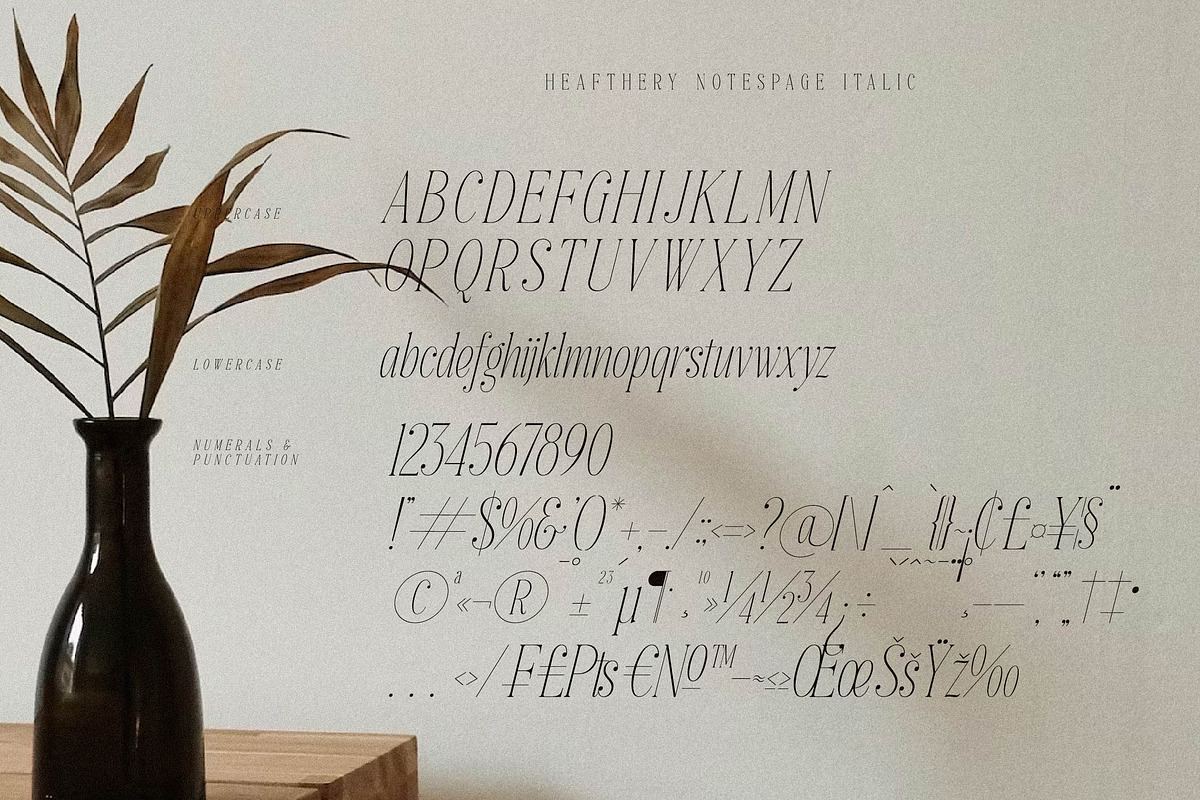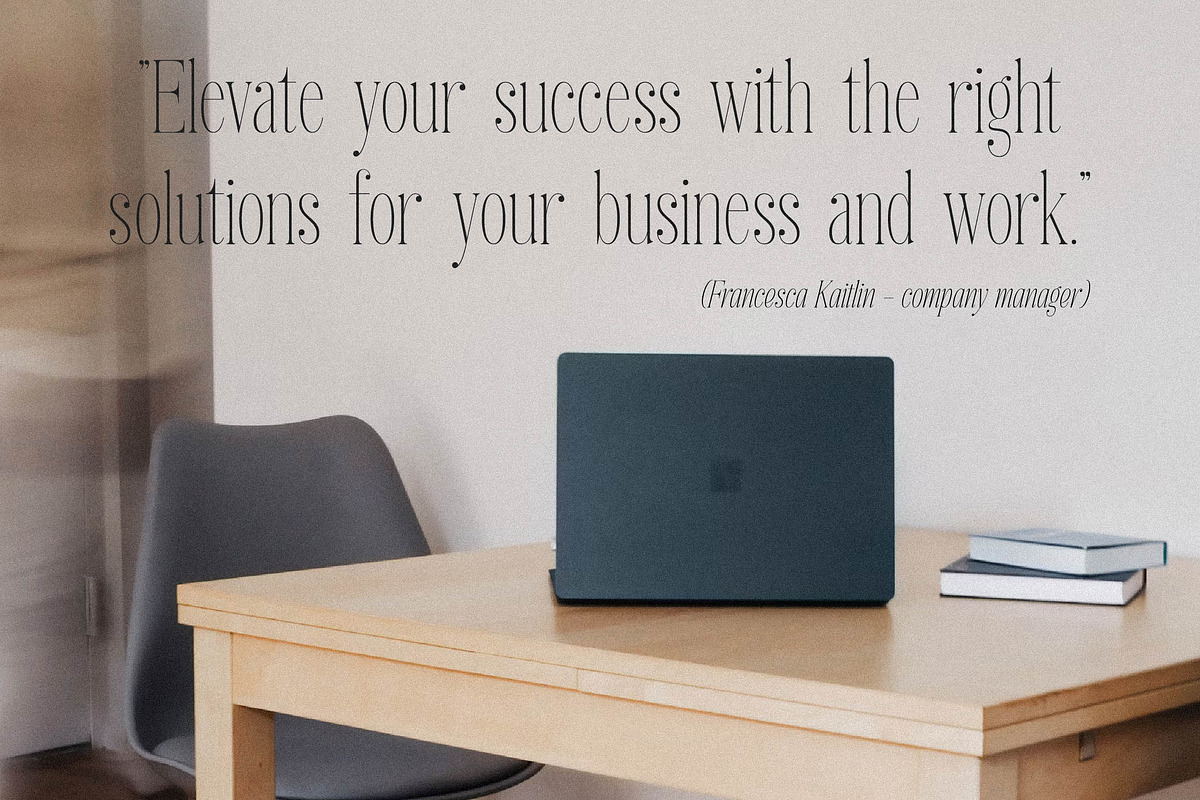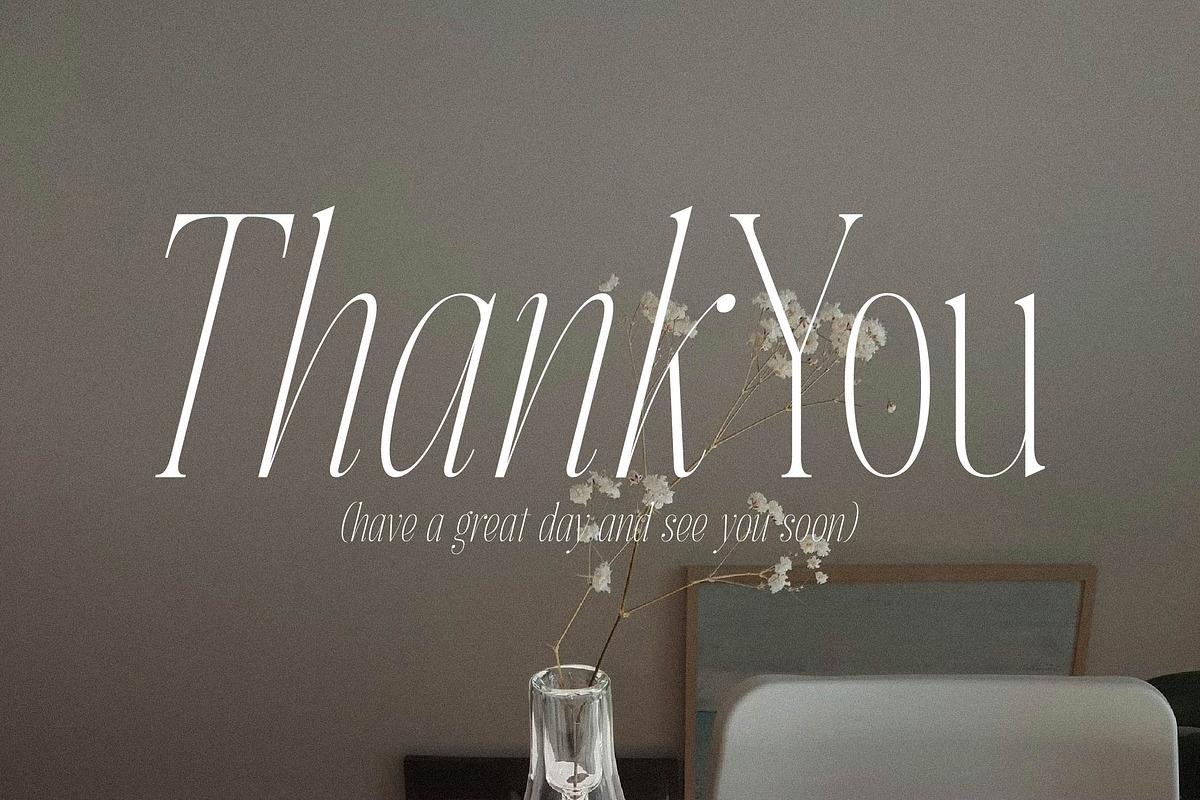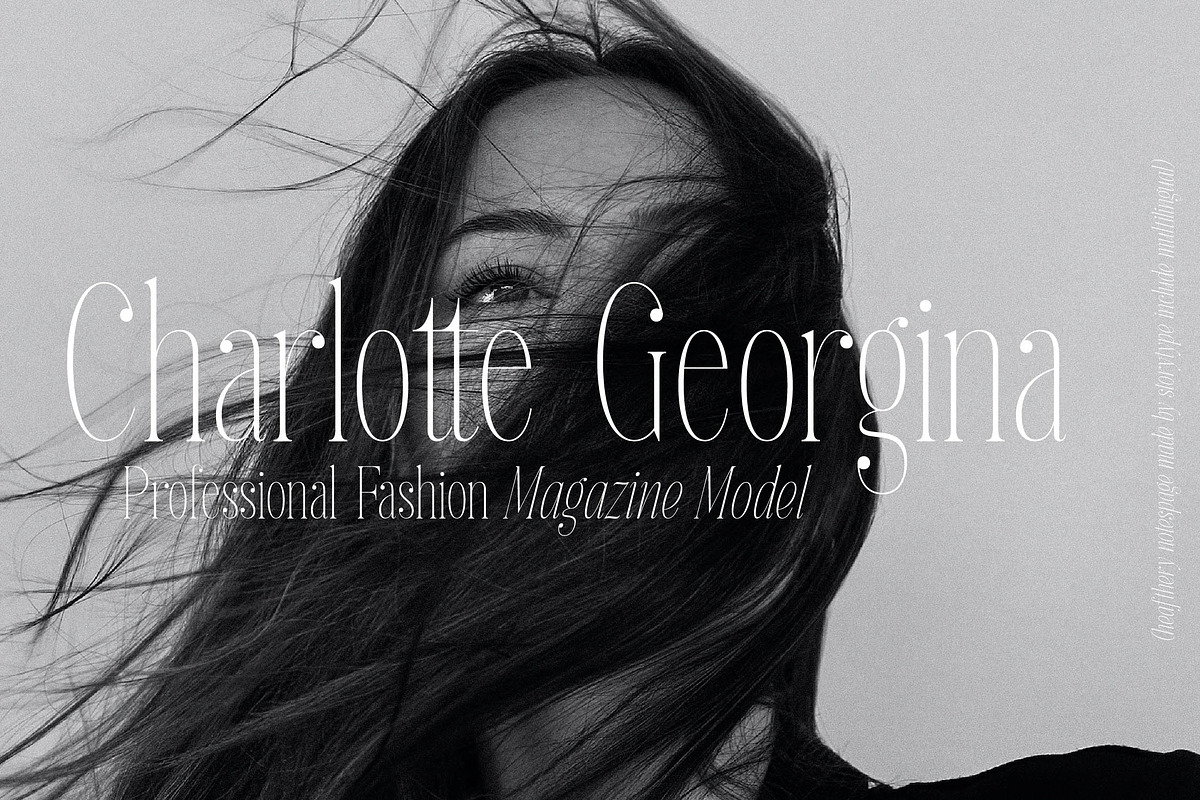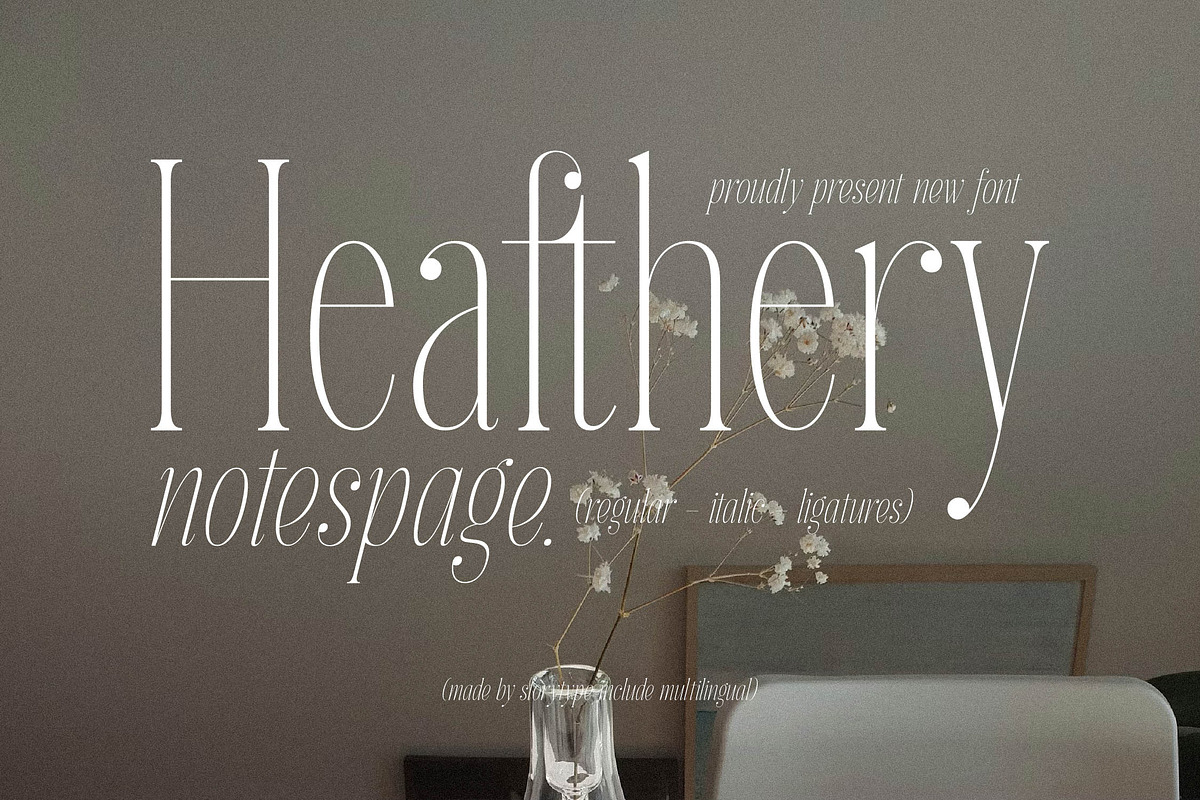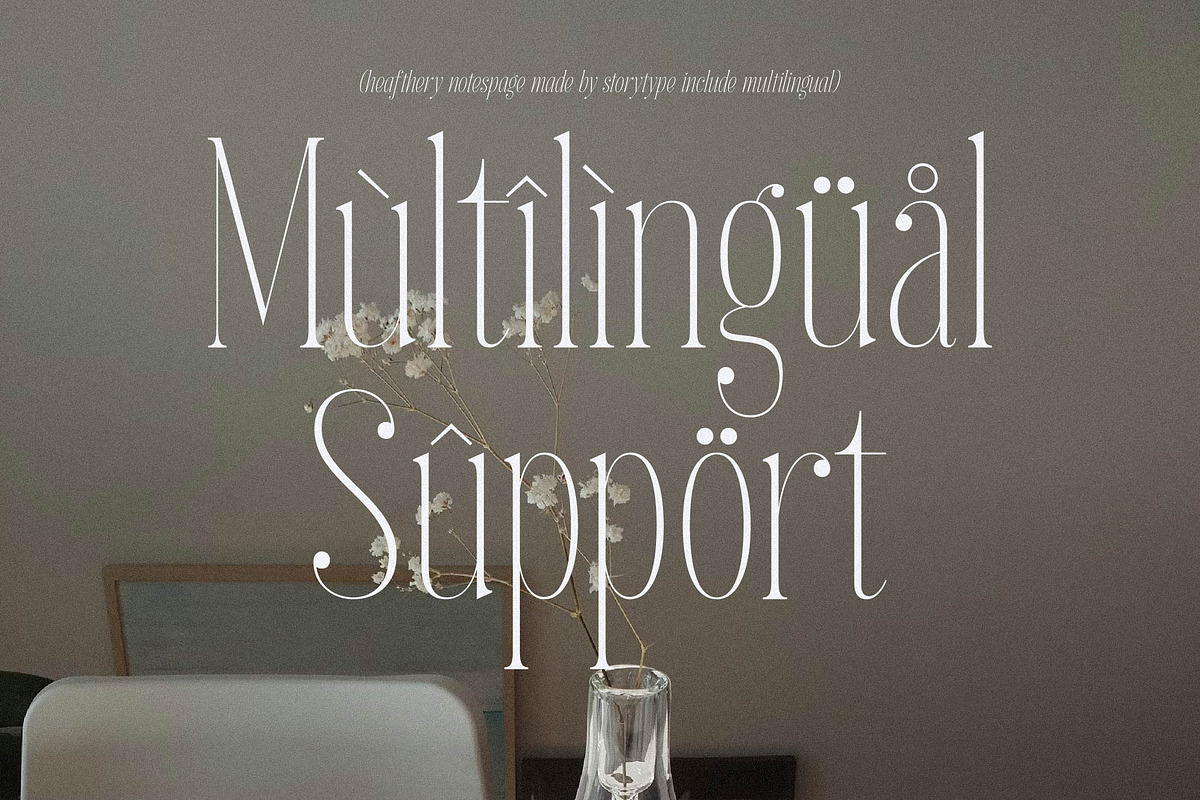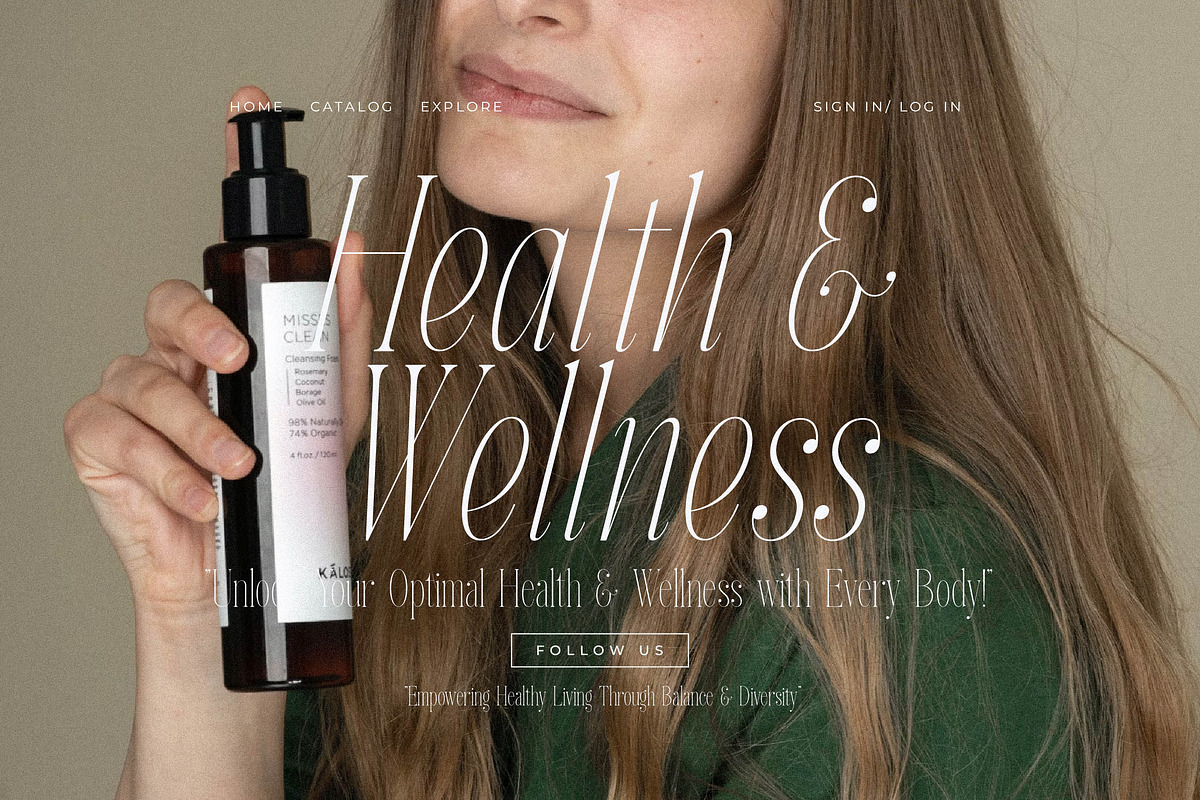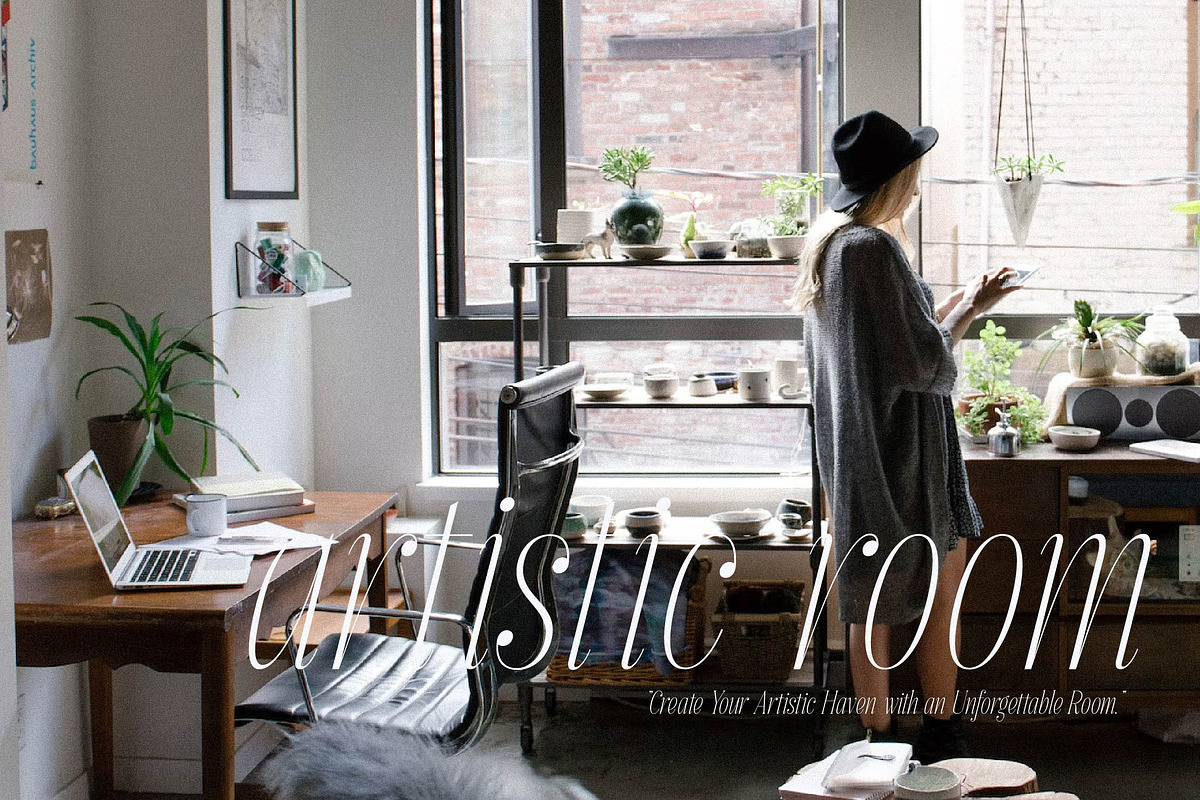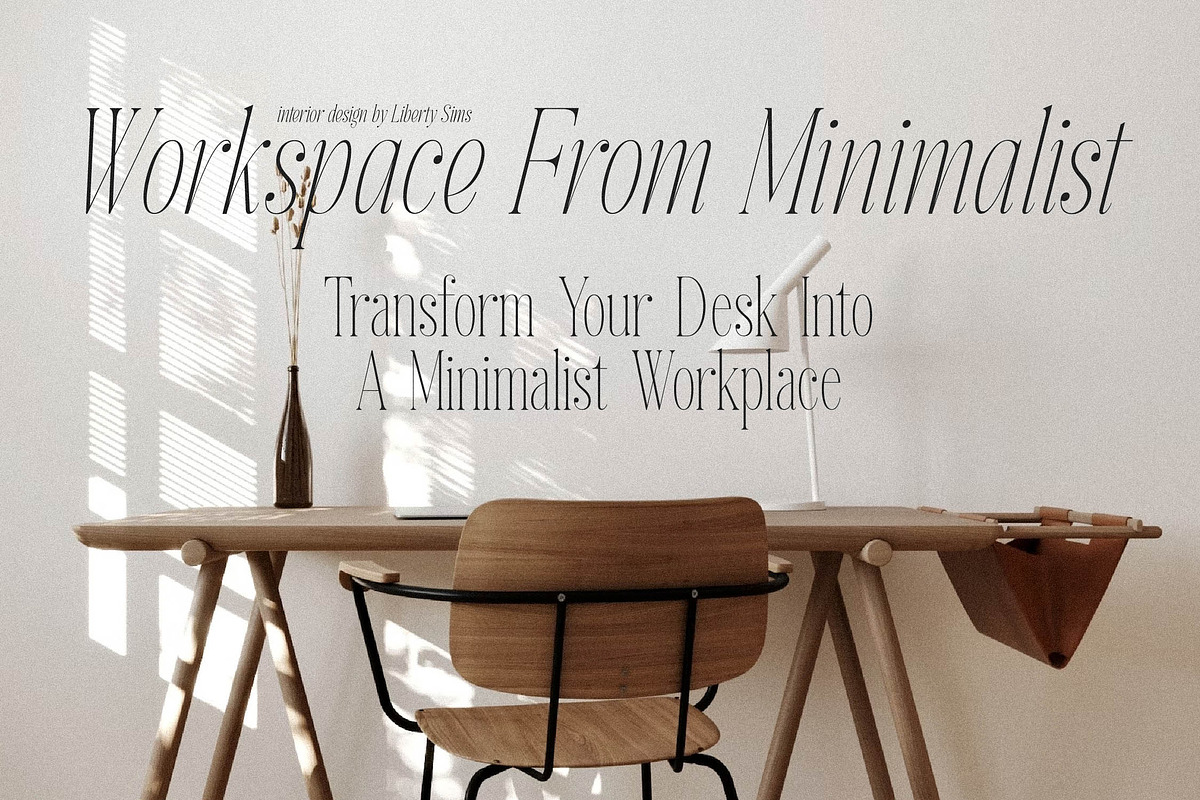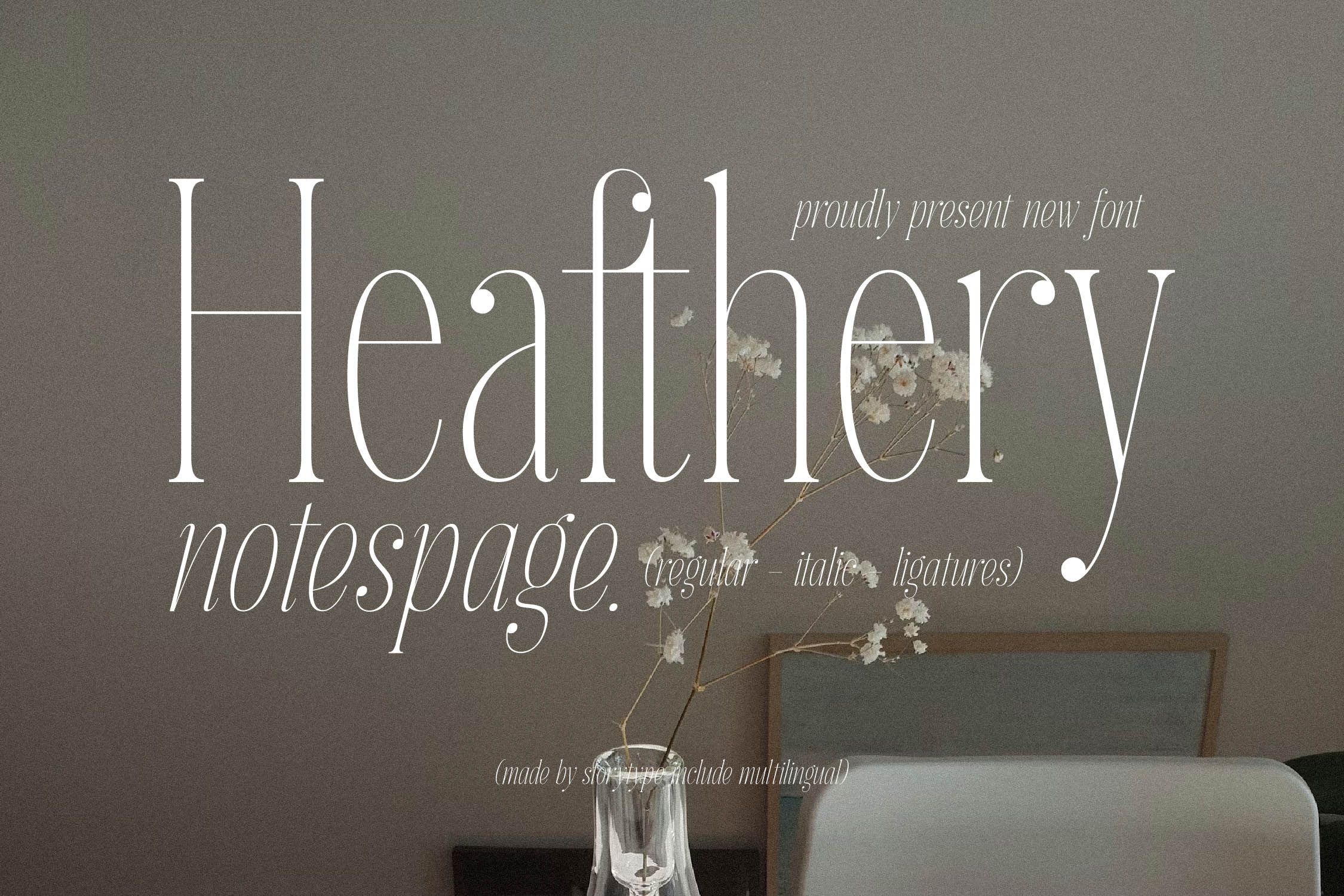
Heafthery Notespage Serif Font
Proudly present Heafthery Notespage Typeface , created by Storytype, A serif modern and classic typeface that has own unique style & modern look. This typeface is perfect for an elegant & luxury logo, book or movie title design, fashion brand, magazine, clothes, lettering, quotes, and so much more.